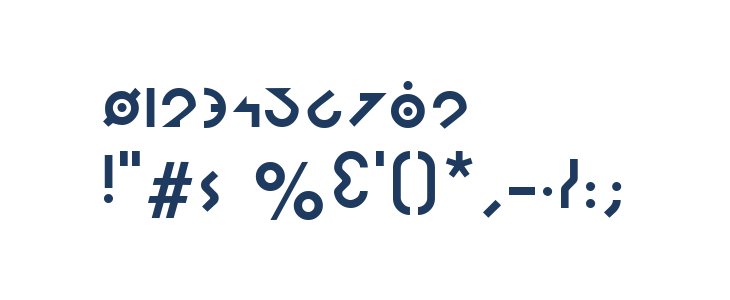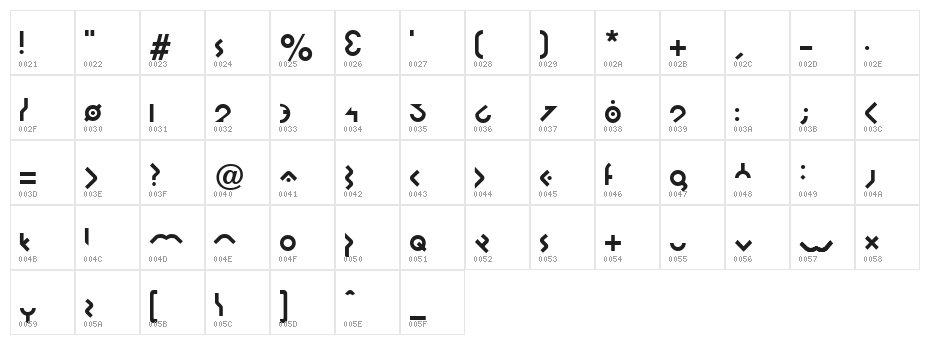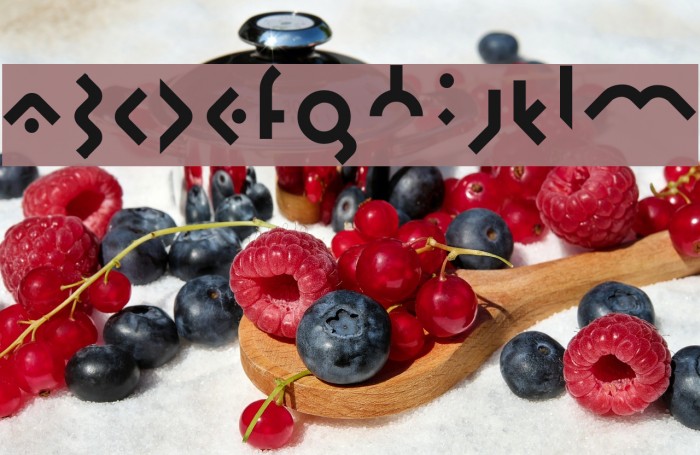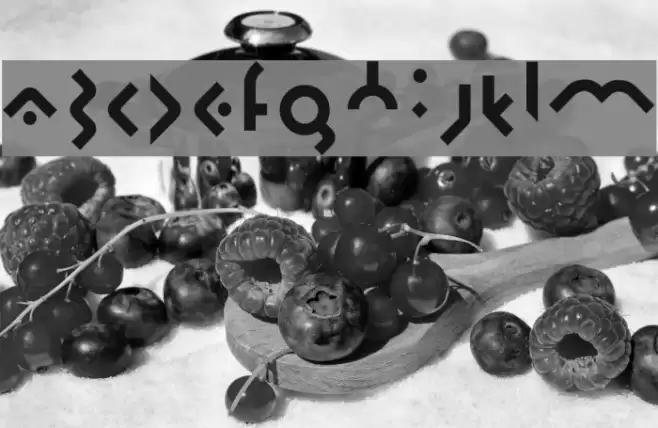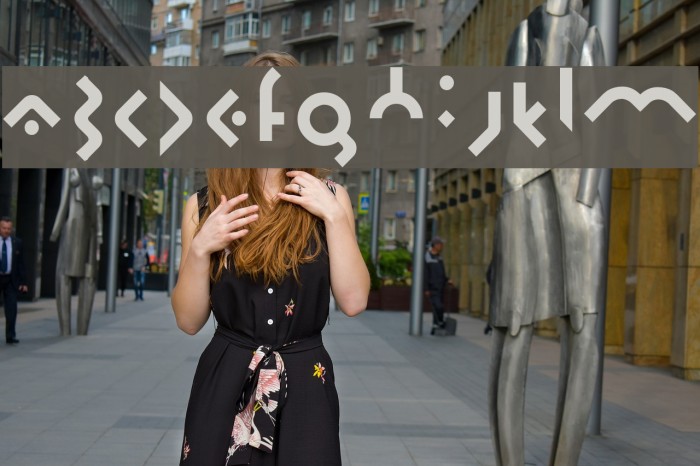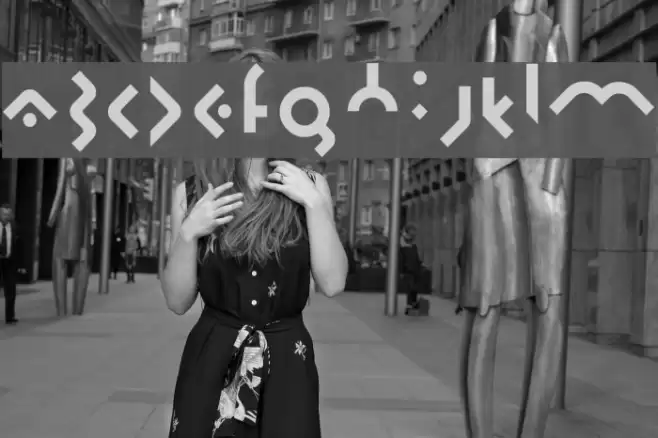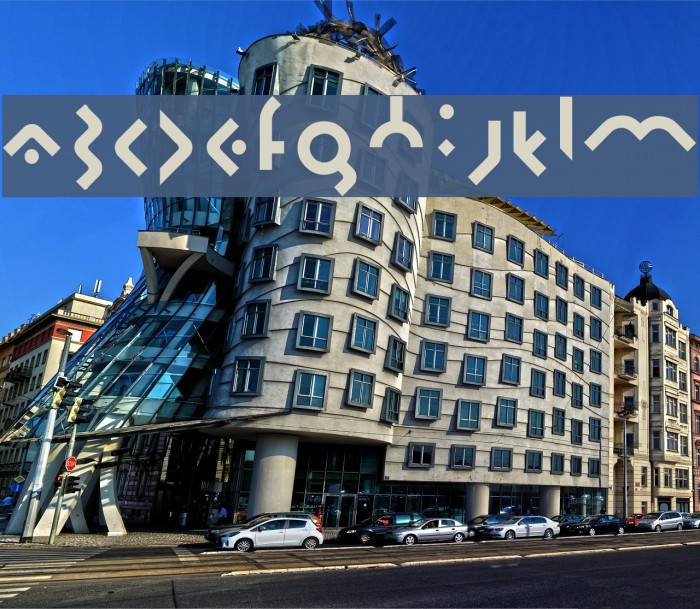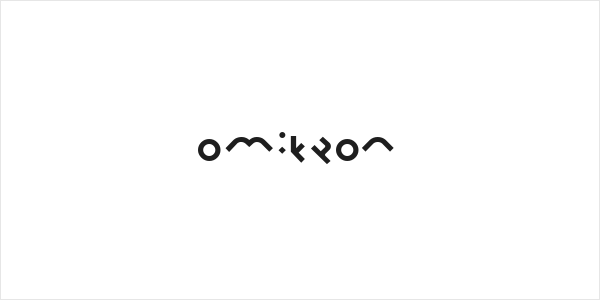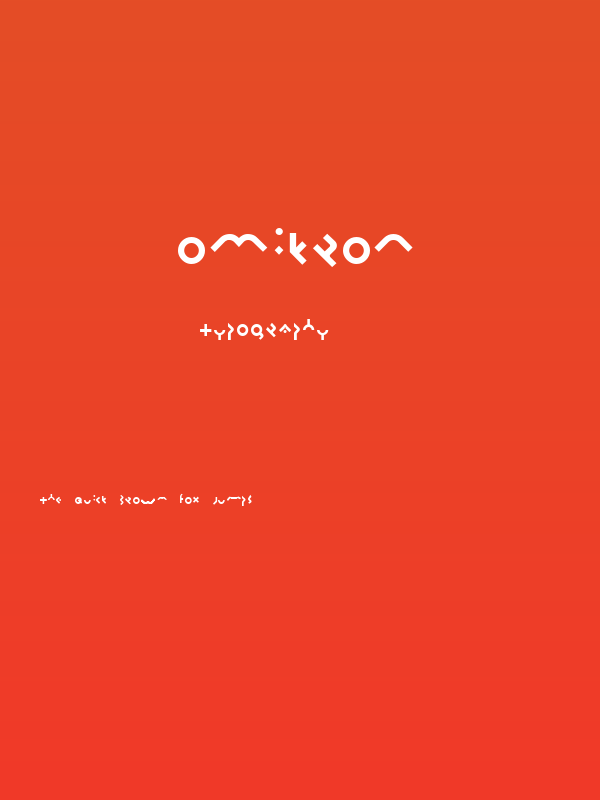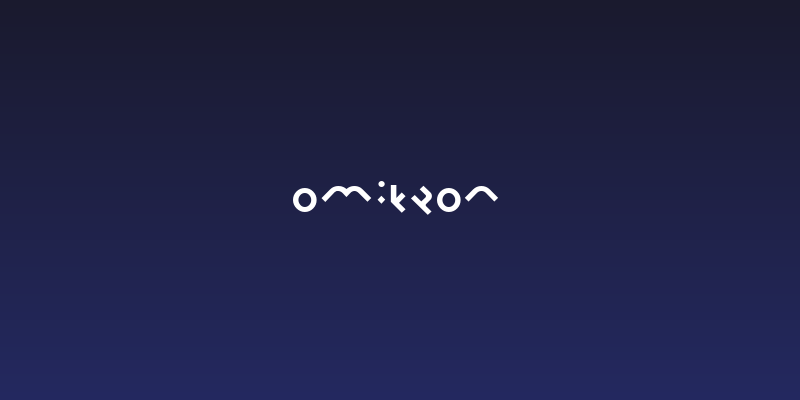
Omikron Font
Omikron Description
This font features a highly stylized and abstract design, characterized by geometric shapes and bold lines. Each character is crafted with a unique combination of angles and curves, creating a futuristic and avant-garde appearance. The font lacks traditional letterforms, opting instead for a symbolic representation that challenges conventional readability. Its distinct style makes it suitable for creative and artistic projects where visual impact is prioritized over legibility. The numbers and special characters maintain the same geometric and abstract aesthetic, ensuring consistency across all glyphs.
| Overall Style | Futuristic, Avant-garde |
| Use Case | Logos, Artistic designs, Creative branding |
| Proposed Projects | Ideal for artistic designs, futuristic themes, logos, and creative branding projects. |